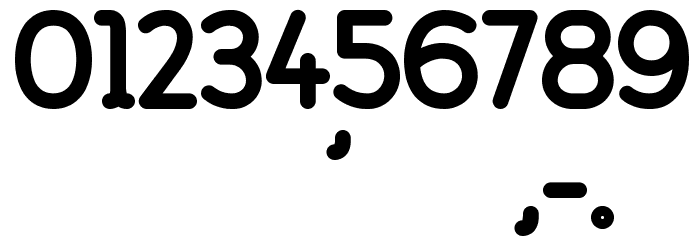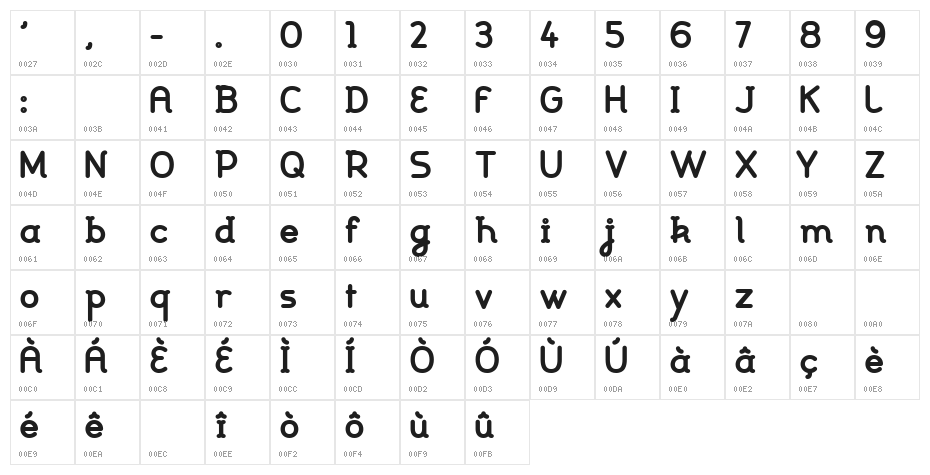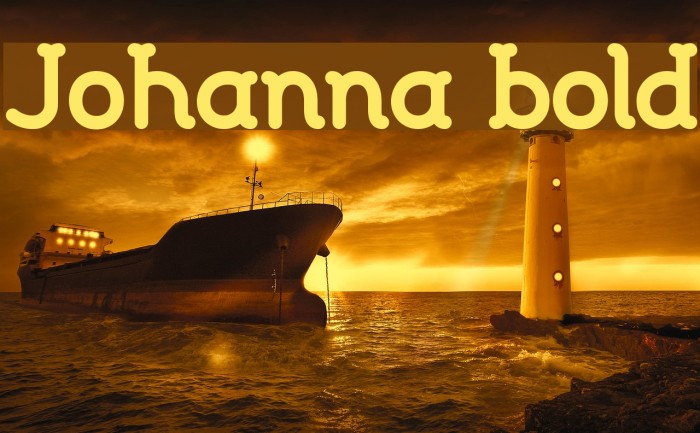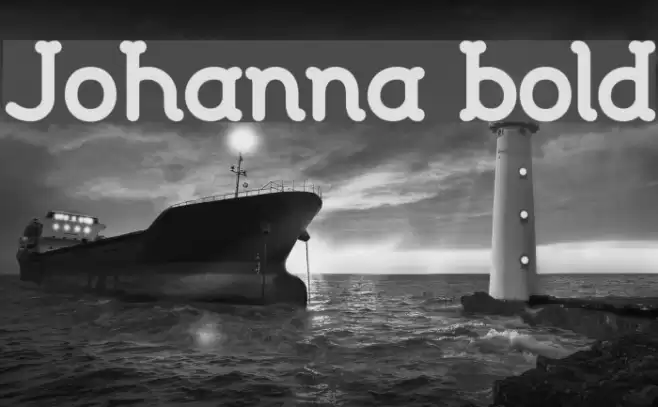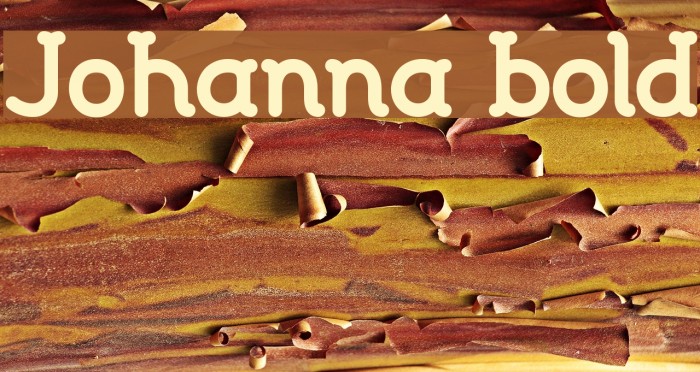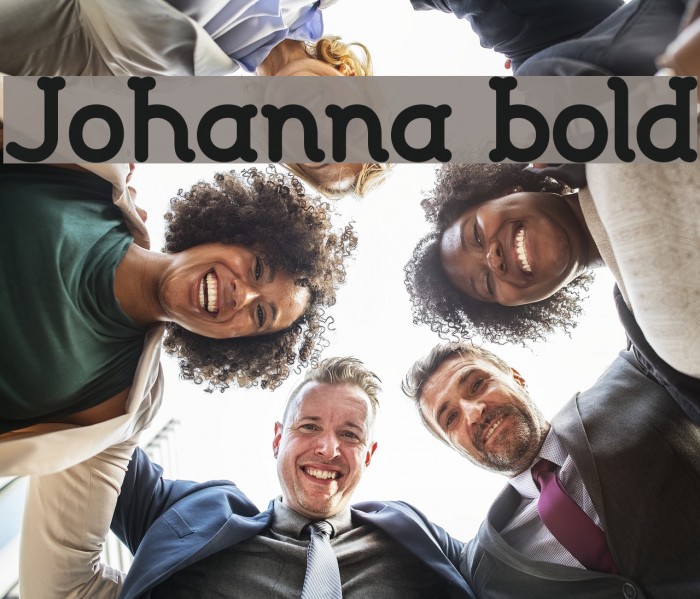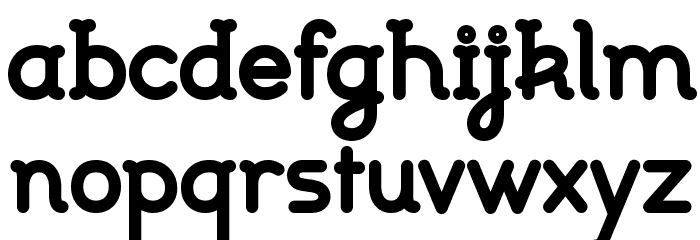
Johanna bold Font
Johanna bold Description
This font features a playful and rounded design, characterized by its bold and smooth curves. The letters are evenly spaced with a consistent stroke width, giving it a friendly and approachable appearance. The uppercase and lowercase letters maintain a uniform style, with slightly exaggerated curves that add a touch of whimsy. The numerals and special characters follow the same design principles, ensuring a cohesive look across all elements. This font is highly legible and versatile, making it suitable for a variety of applications where a fun and engaging style is desired.
| Proposed Projects | Ideal for children's books, playful branding, posters, and social media graphics. |